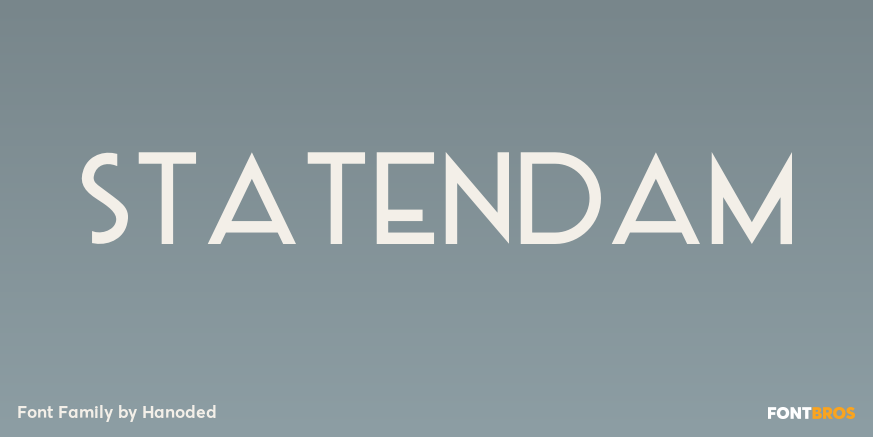
Statendam
About Statendam
Statendam is an all caps Art Deco font. It reminds me of the bold lettering used for cruise ship posters from the interbellum, especially those used for the Holland America Line (HAL) ads. It is not a recreation of a particular typeface; merely my salute…